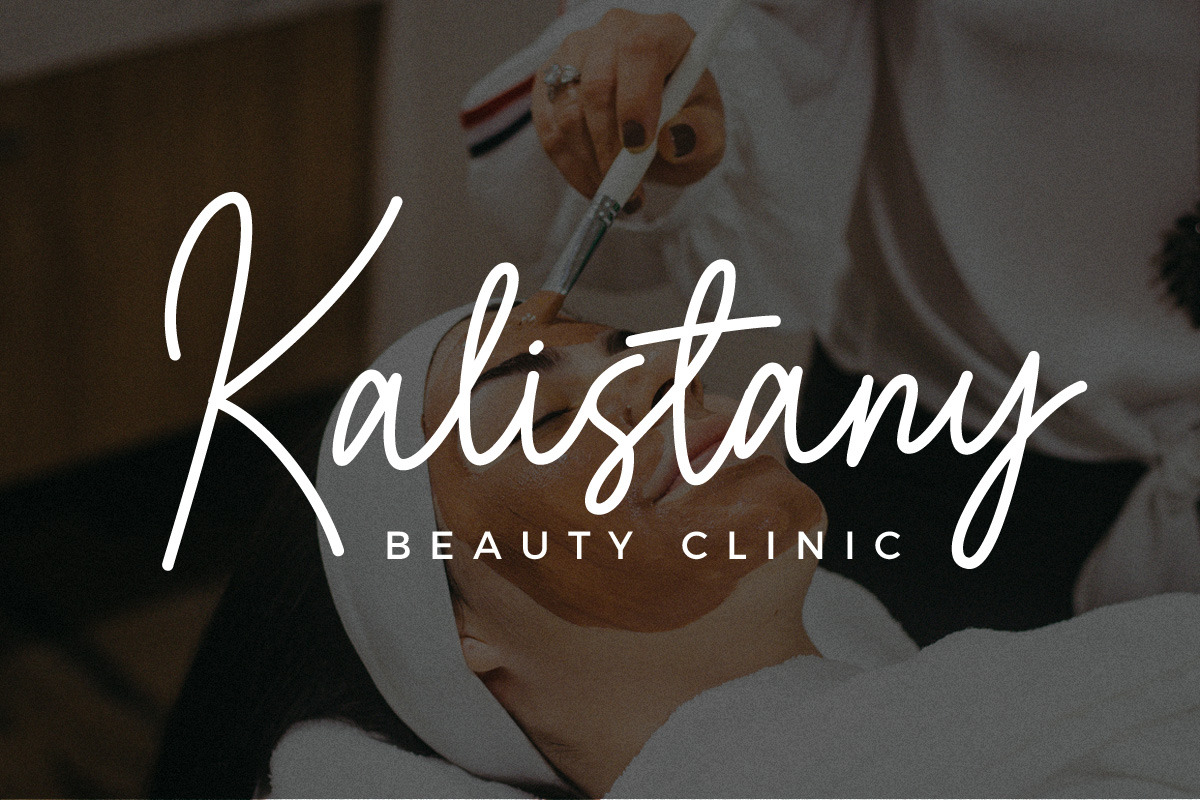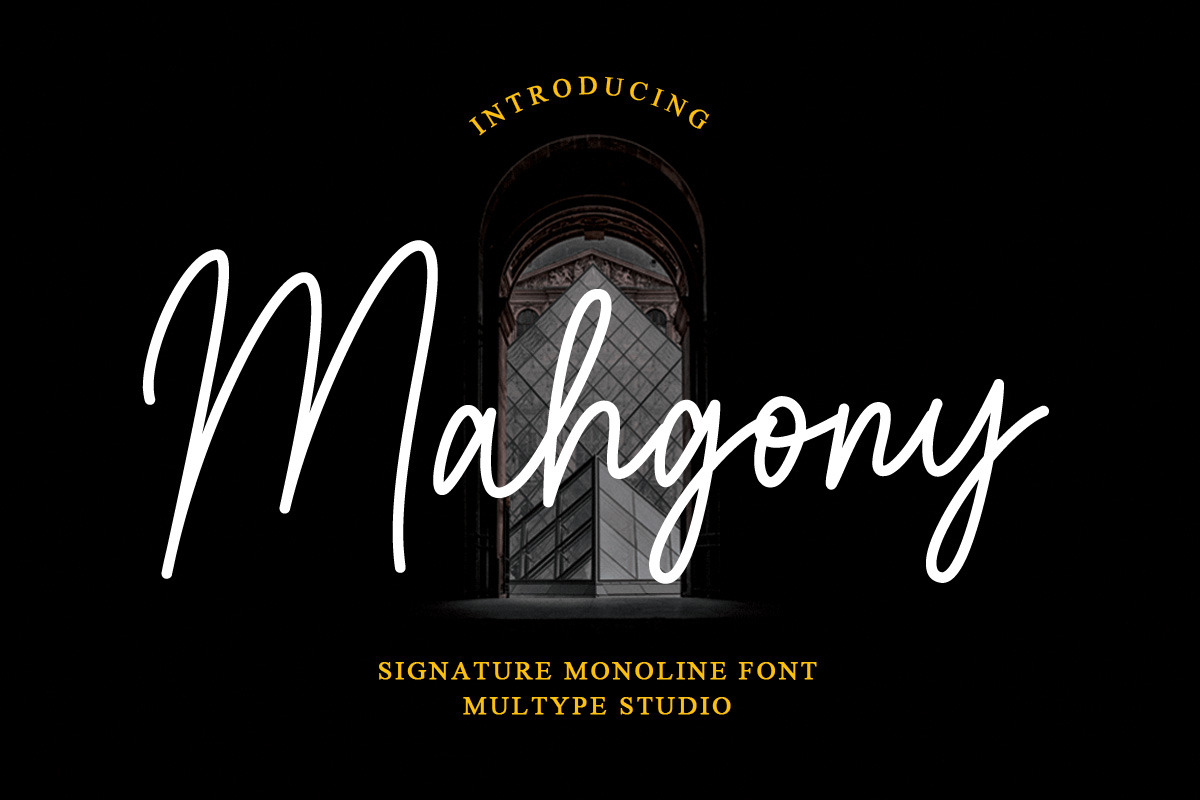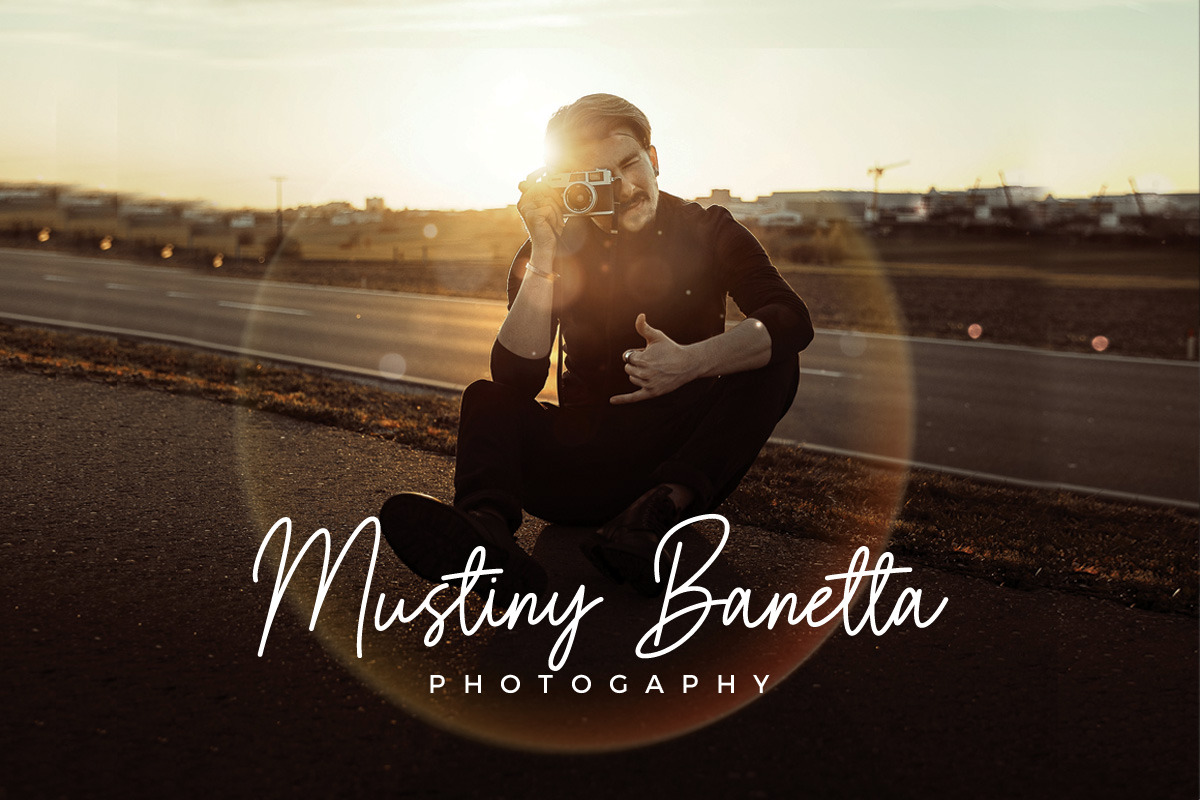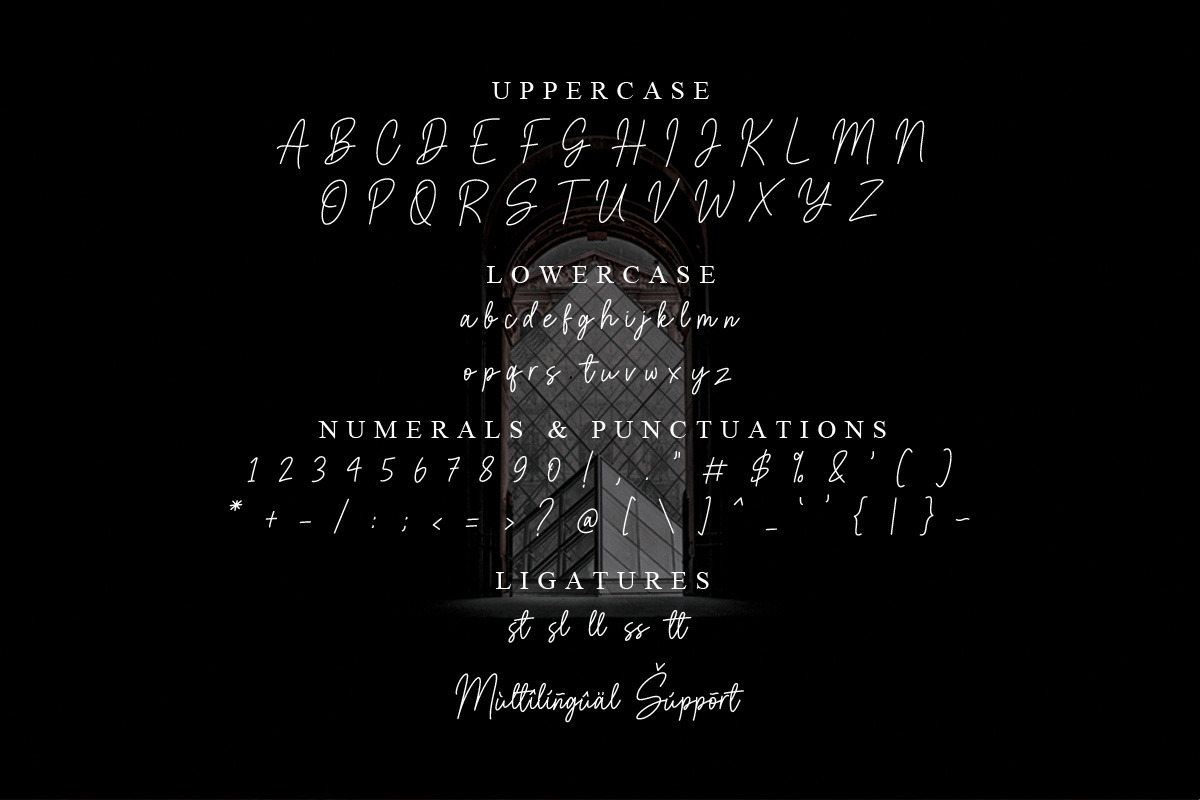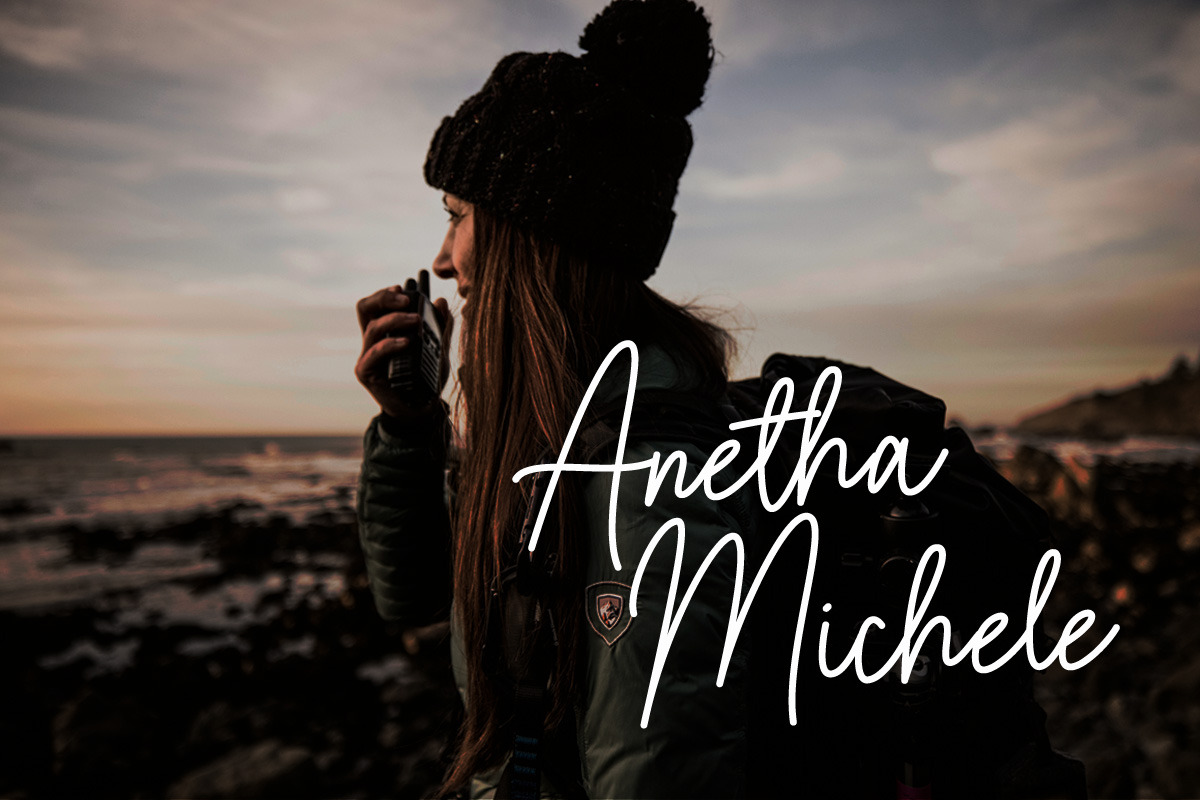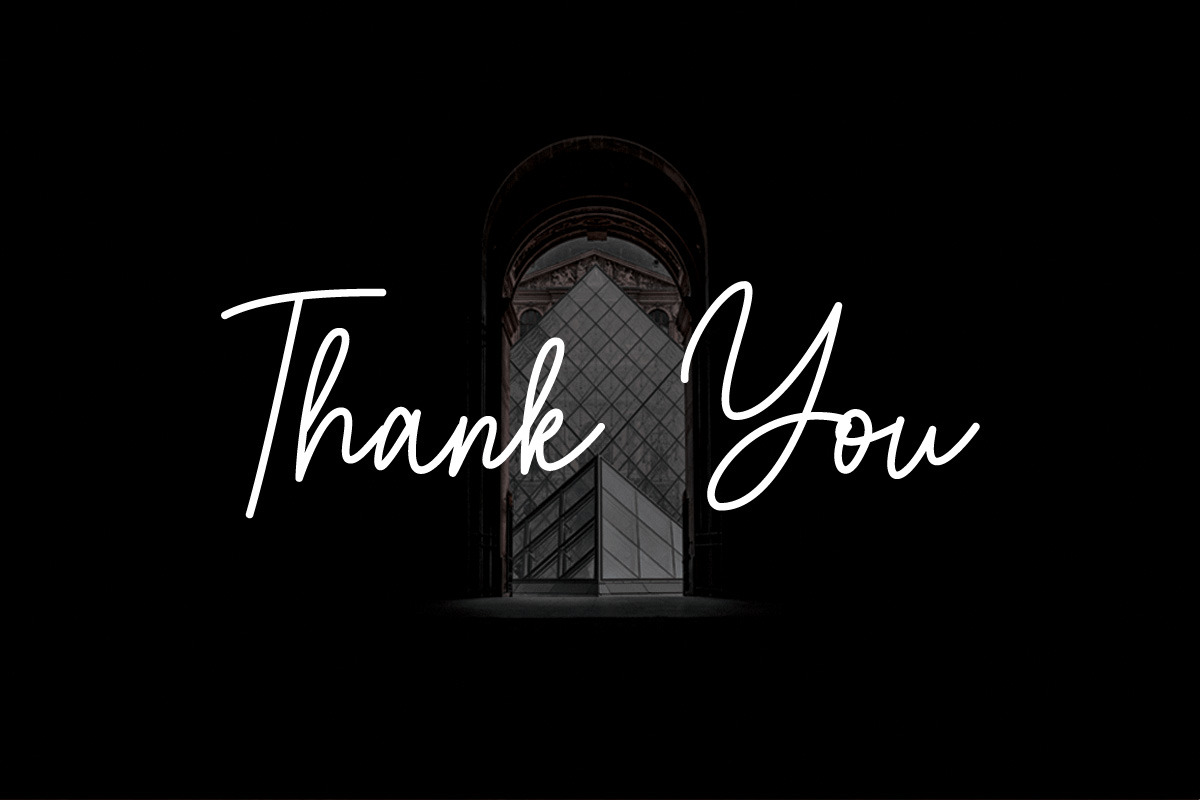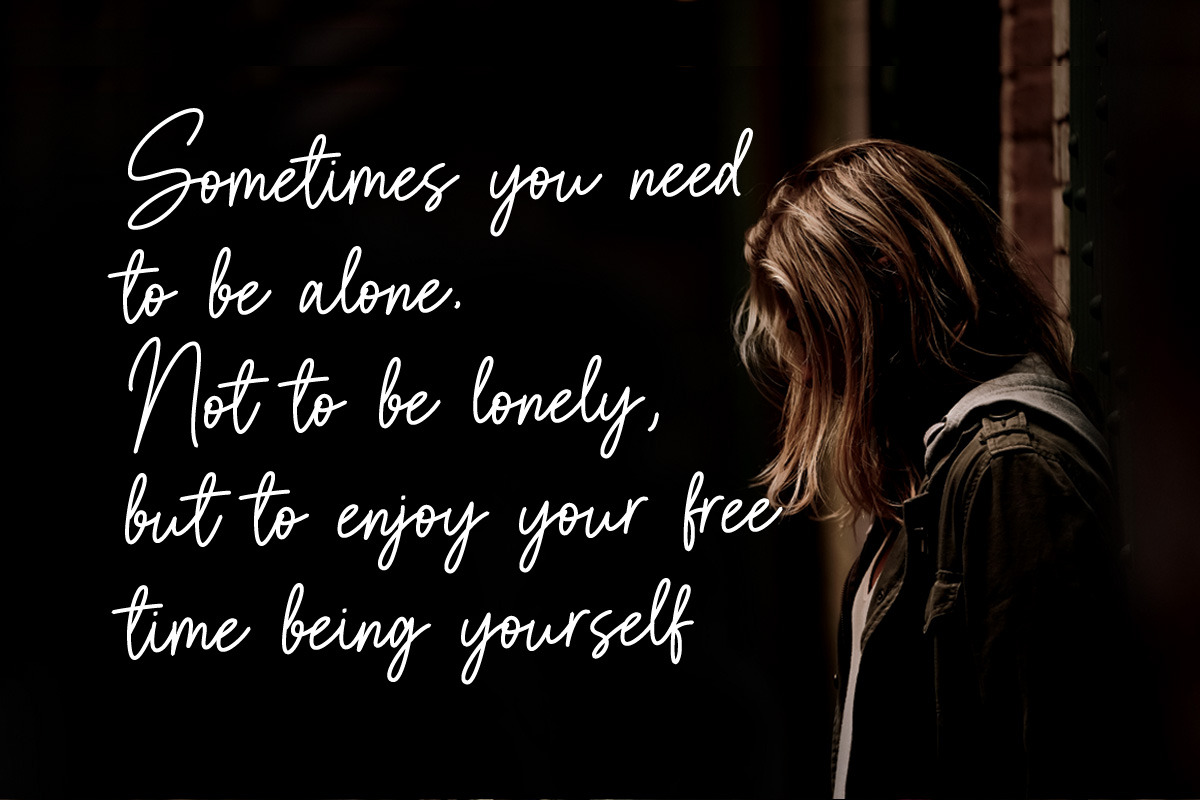
Mahgony Monoline Business Font
Mahgony is a signature monoline script font with unique and elegant curves. Mahgony is perfect for photography, watermark, social media posts, advertisements, logos & branding, invitation, product designs, label, stationery, wedding designs, product packaging, special events or anything that need handwriting taste.
- Numbers & Symbols